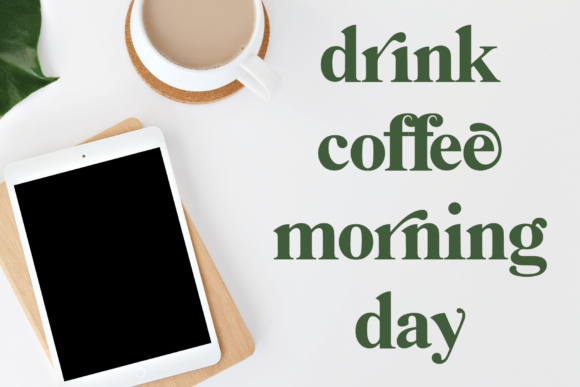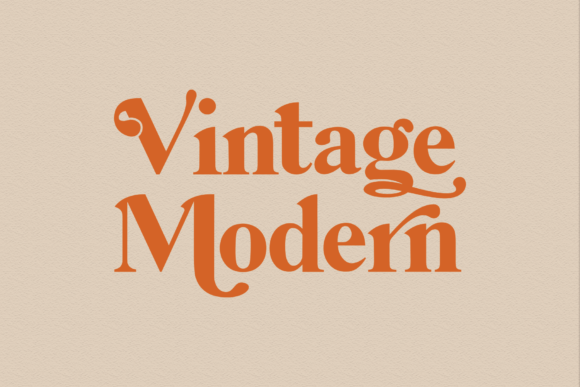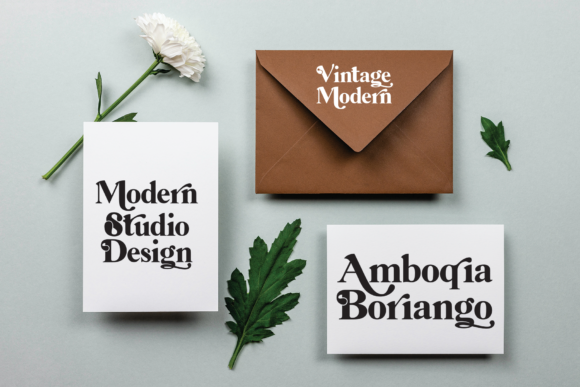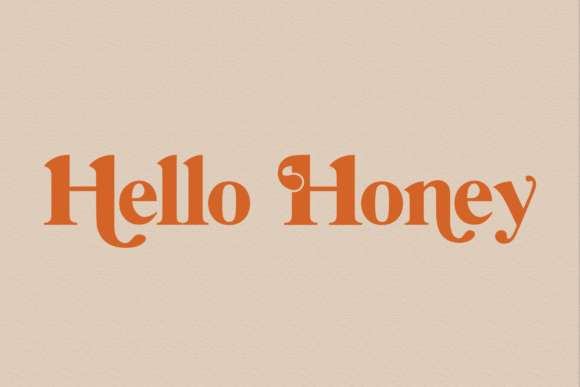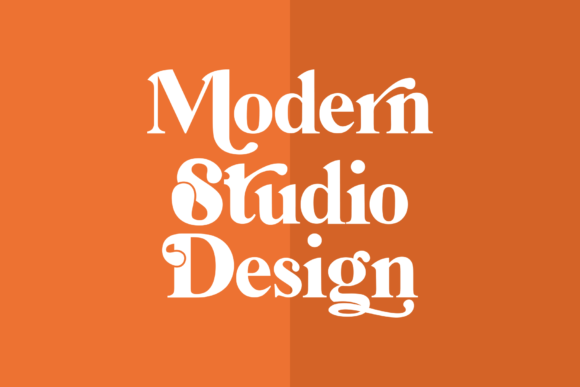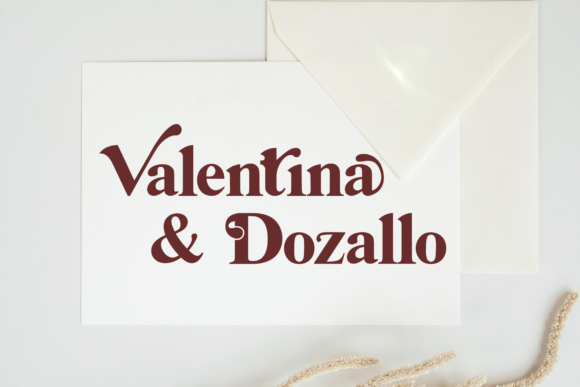
The Perfect Font for Your Next Creative Masterpiece
There’s nothing quite like the thrill of staring at a blank page, waiting for inspiration to strike. The cursor blinks, your imagination runs wild, and suddenly – a brilliant idea is born. For designers, this moment is what drives us to create something truly exceptional. But, it’s not just about the idea itself; it’s about bringing it to life with the right tools. That’s where the Amboqia Boriango Font comes in – a masterfully designed serif font that elevates your creative vision to new heights.
As a designer, you understand the importance of selecting the perfect font to convey your message. Amboqia Boriango Font is more than just a font – it’s a statement piece that adds sophistication and elegance to any design. Its unique blend of style and functionality makes it a valuable addition to any designer’s toolkit, and a must-have for anyone looking to take their creative projects to the next level.
Amboqia Boriango Font Key Features
- Font Family: Amboqia Boriango
- Unique Characteristics: Amboqia Boriango features a unique blend of modern and traditional design elements, with a focus on elegant lines and subtle flair
Amboqia Boriango Font Review
Overall, I’m quite impressed with the Amboqia Boriango font, but as with any design element, it’s not without its strengths and weaknesses.
- Unique Design: The Amboqia Boriango font boasts a distinctive, hand-drawn look that sets it apart from more generic fonts.
- Legibility: Despite its quirky nature, the font remains surprisingly legible, making it suitable for a wide range of applications.
- Expressiveness: Amboqia Boriango conveys a sense of creativity and playfulness, perfect for artistic or design-focused projects.
- Limited Use: While the font is great for artistic projects, it may not be the best choice for formal or professional contexts where a more traditional font is required.
- Lack of Variations: Amboqia Boriango comes in a limited range of weights and styles, which may limit its versatility.
- Distractions: The font’s hand-drawn nature can sometimes make it feel busy or overwhelming, particularly in large blocks of text.
Overall, I’d say the Amboqia Boriango font is a great choice for designers looking to add some personality to their work. While it may not be suitable for every project, its unique design and legibility make it a valuable addition to any font collection.
The Amboqia Boriango Font is ideal for creative projects, such as:
– Brochures and flyers
– Branding materials
– Advertising campaigns
– Personalized gifts and invitations